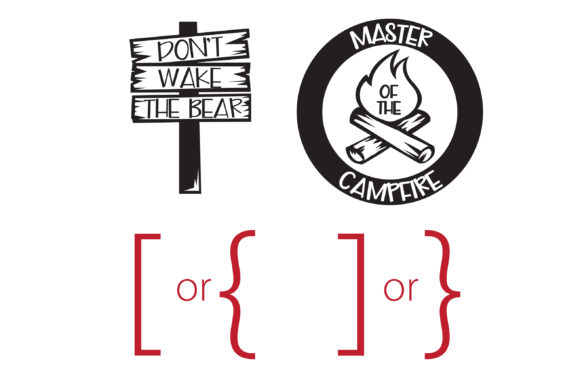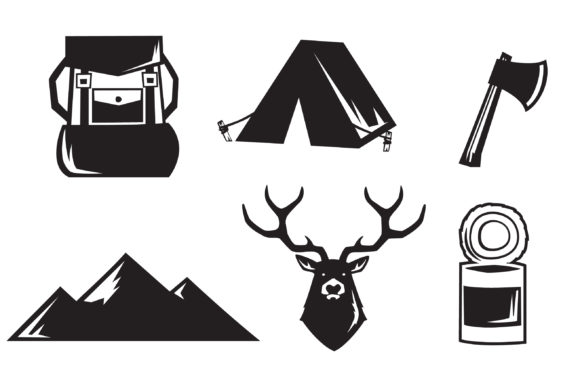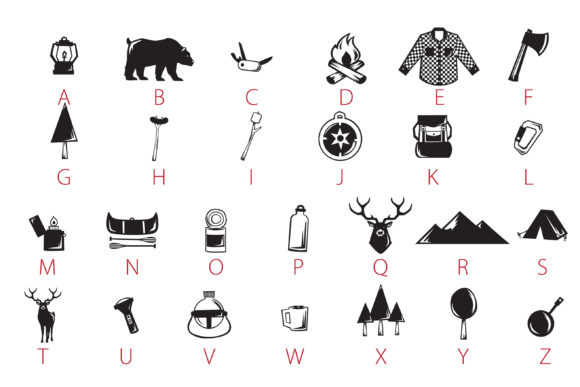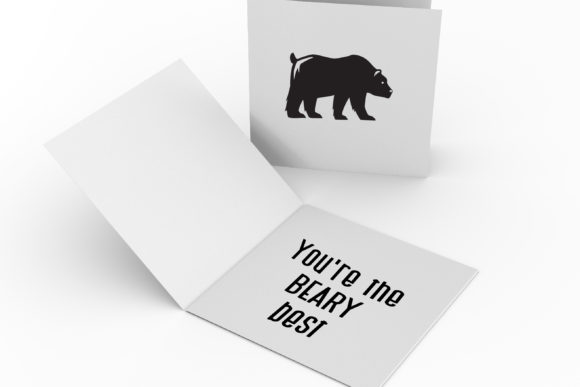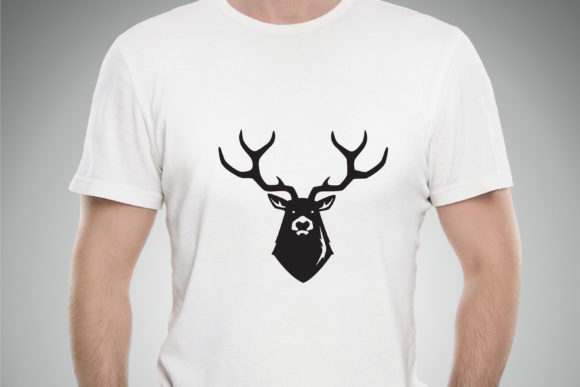
Introduction to Rustic Dad Font Font
Fonts play a crucial role in design, and the Rustic Dad Font font is a typeface that brings both character and versatility to any project. Whether you’re working on a branding project, a website, or a print design, the Rustic Dad Font font offers a unique style that can elevate your work.
Rustic Dad consists of 26 camping images.
Itβs a unique font that celebrates all things dad .
Key Features of Rustic Dad Font Font
Why Choose Rustic Dad Font Font?
The Rustic Dad Font font is more than just a typeface β it’s a design tool that helps you communicate your message with style and clarity. Its unique character set and versatile design make it suitable for a wide range of applications, from elegant invitations to bold headlines.
With its carefully crafted letterforms and balanced proportions, the Rustic Dad Font font ensures readability and visual appeal across all mediums.
What makes Rustic Dad Font font special?
The Rustic Dad Font font stands out with its unique design, exceptional readability, and versatility across various design applications.